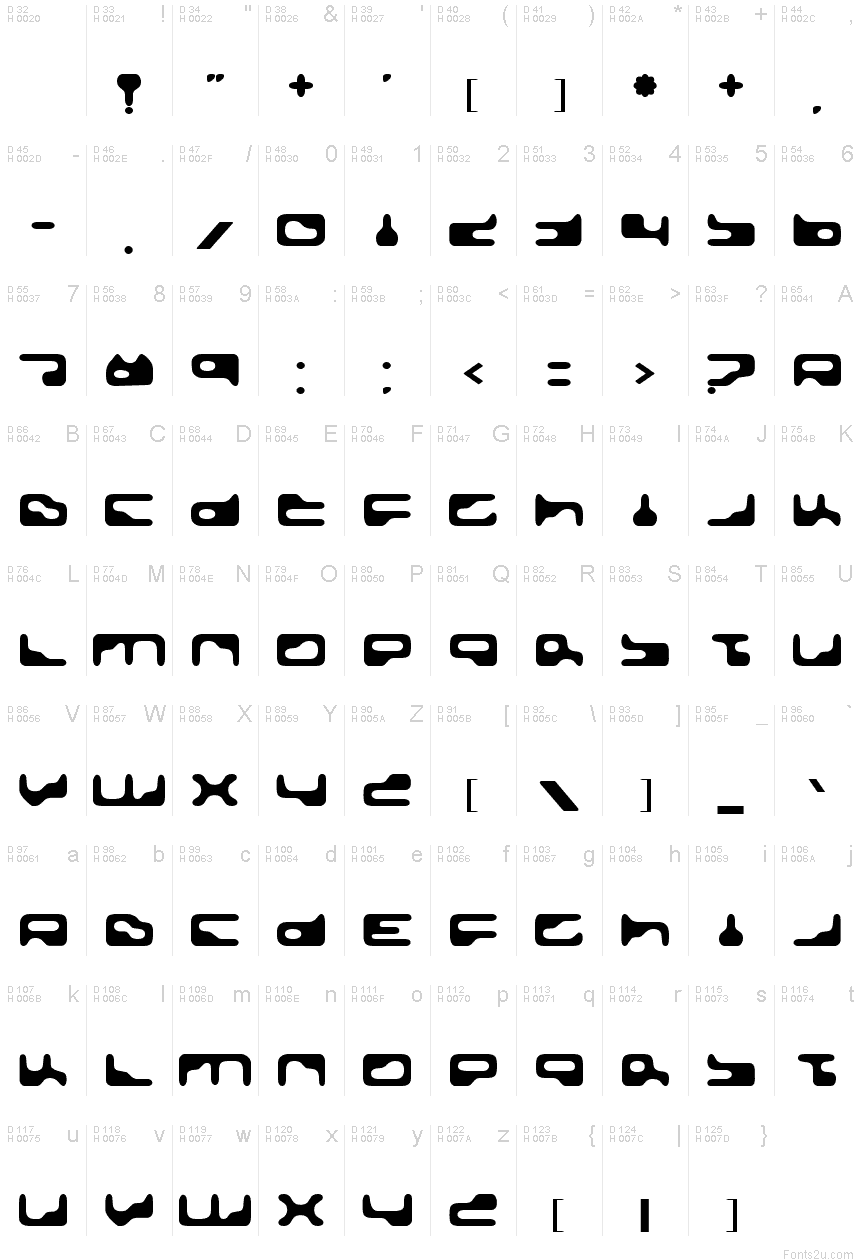
Golden Girdle
Golden Girdle font by Ray Larabie is a free futuristic display typeface. Its thick, pillowy curves and enclosed, almost tubular forms make every word feel like it’s been poured into a sleek plastic shell. Letters lock together in a continuous flow, creating a bold, monolithic wordshape that feels equally at home on a retro console screen and a sci‑fi control panel.
Using Golden Girdle, you can push branding for games, techno or electronic music events, sci‑fi film titles, gadget packaging, posters, and motion graphics into a distinctly otherworldly territory. The generous curves read best at larger sizes, where the inky, rounded shapes can really breathe; pair this free font with a clean, light geometric sans for supporting text to keep layouts sharp and readable.